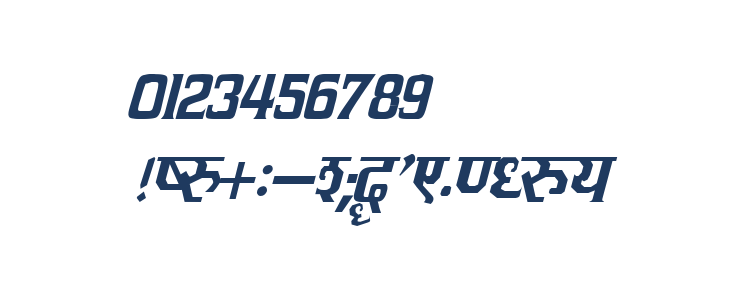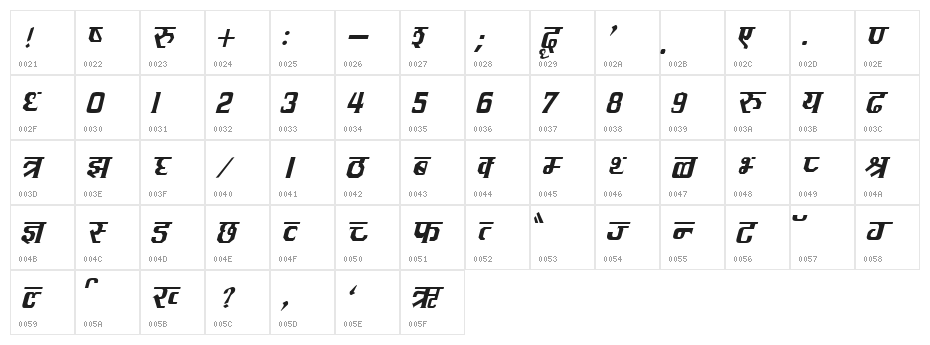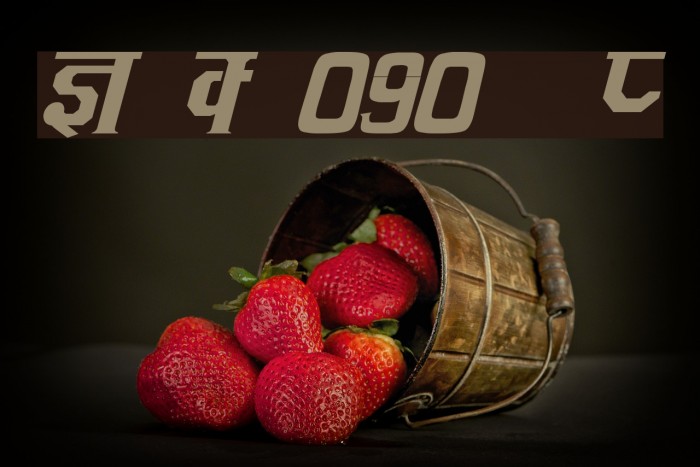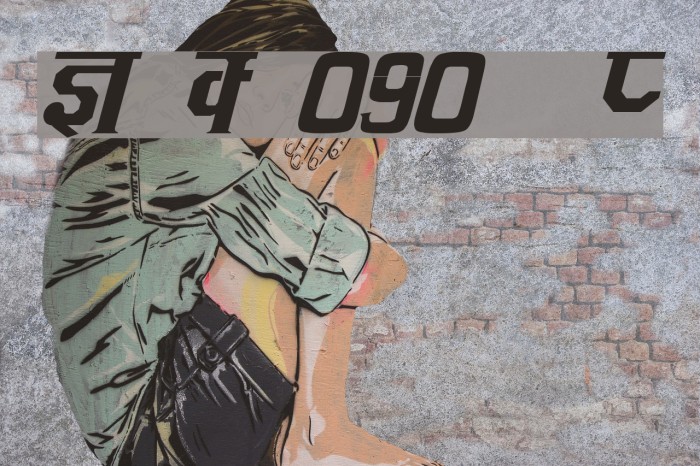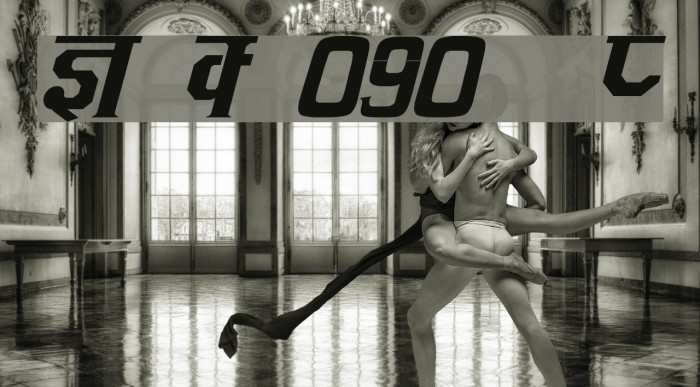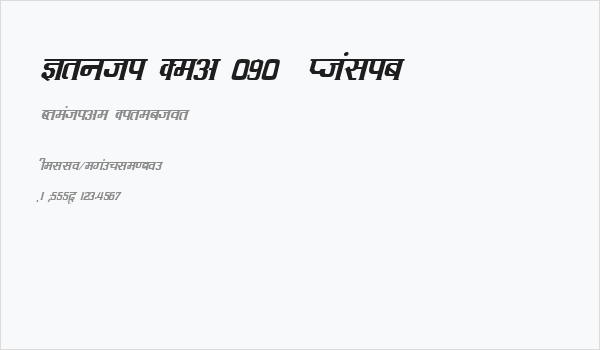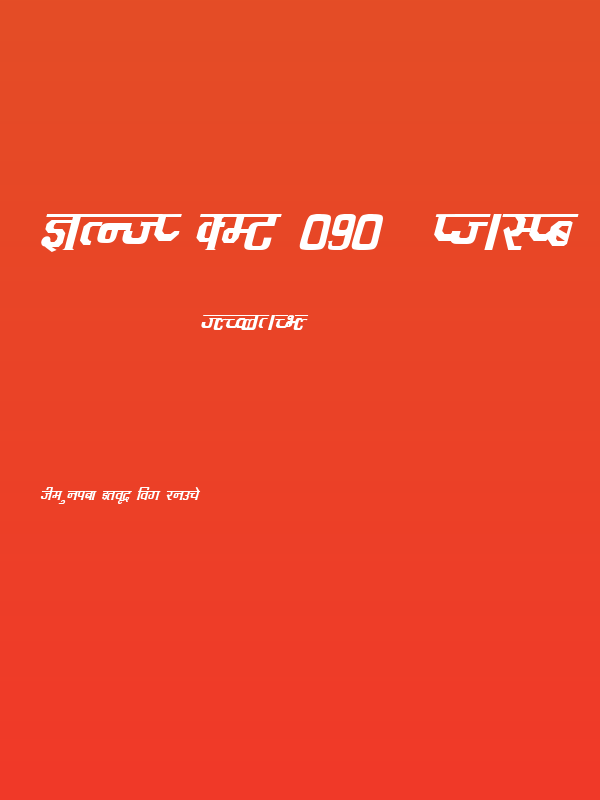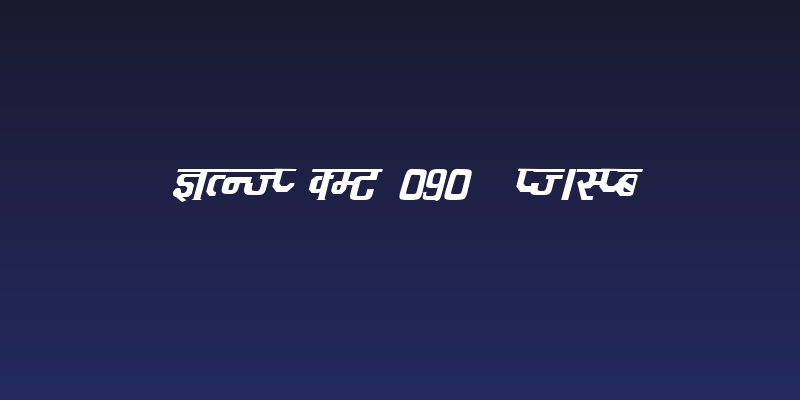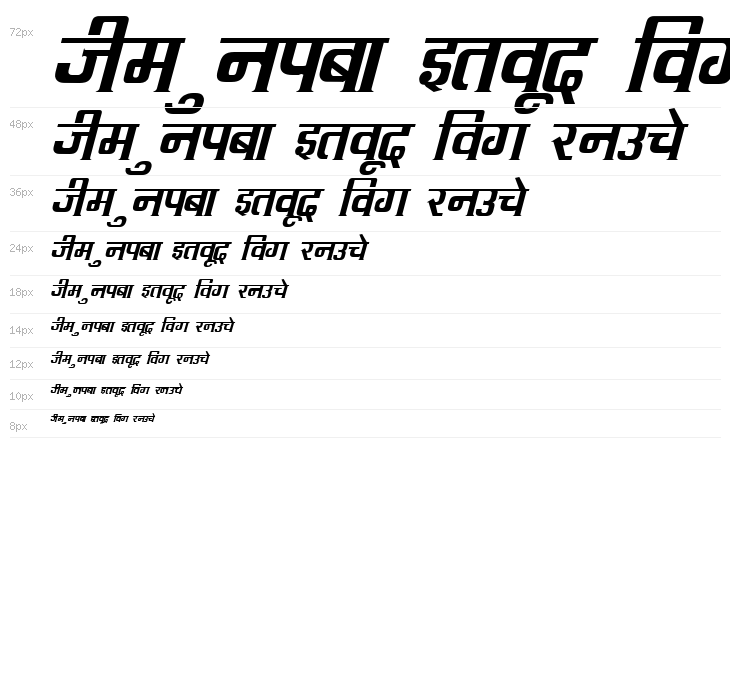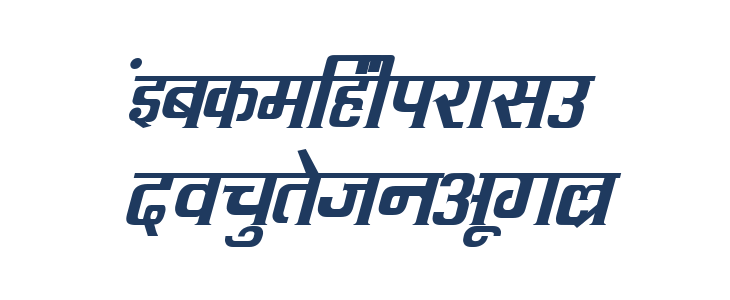
Kruti Dev 090 Italic Font
Kruti Dev 090 Italic Description
This font features a bold and dynamic style, characterized by its italicized form and strong presence. The characters exhibit a distinct slant, enhancing the sense of movement and energy. The strokes are thick and consistent, providing a robust and impactful appearance. The font maintains a uniform width across characters, ensuring readability while retaining its unique flair. The spacing between characters is tight, which contributes to its compact and cohesive look. This font is well-suited for creating attention-grabbing headlines or titles, where a bold statement is desired.